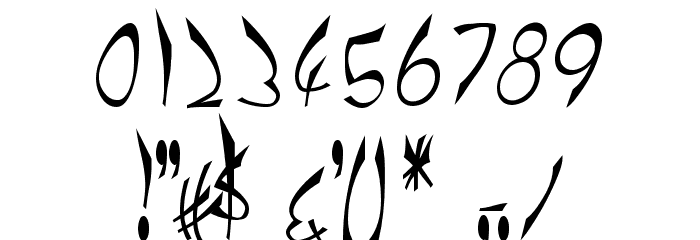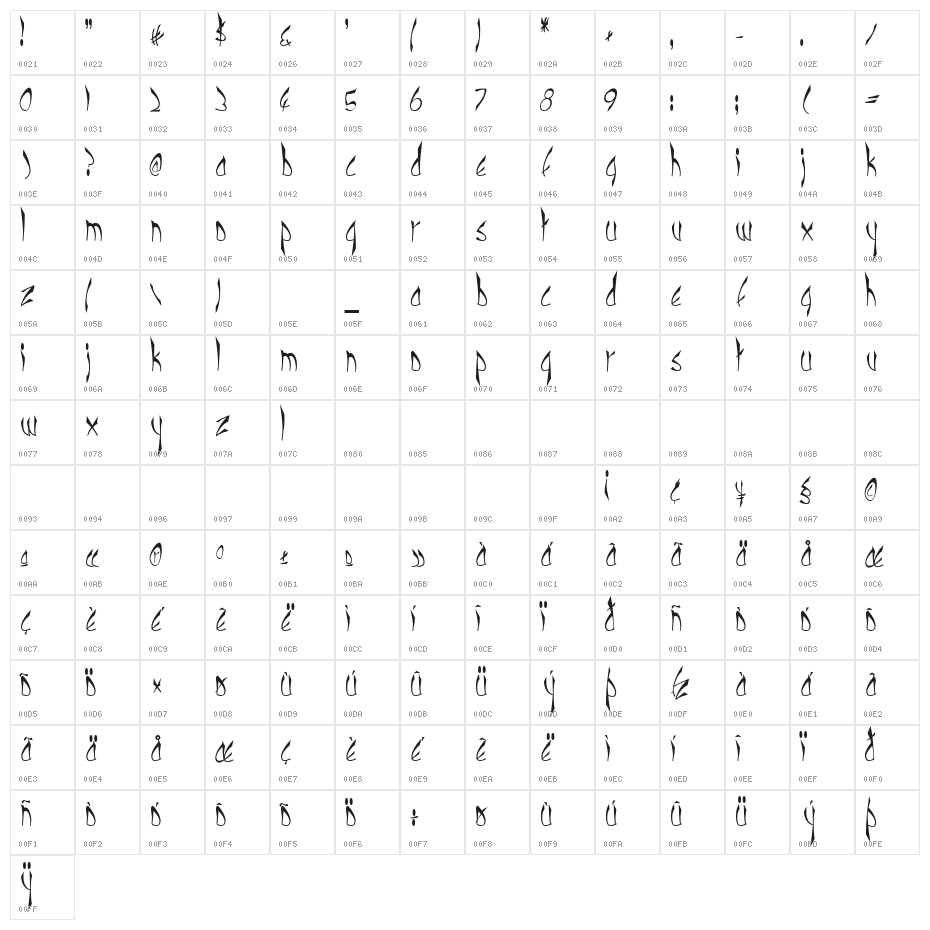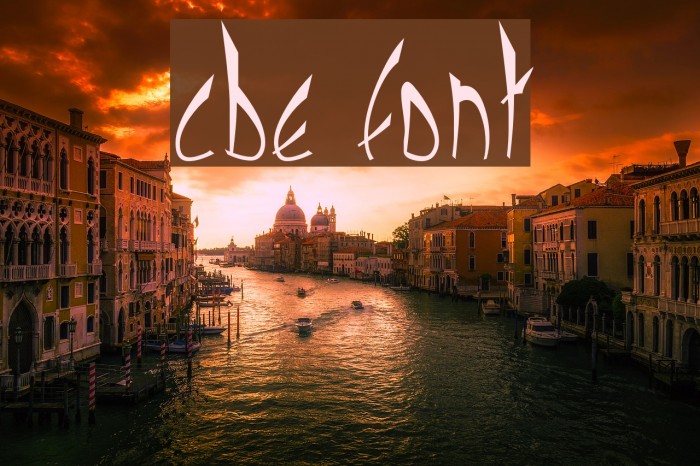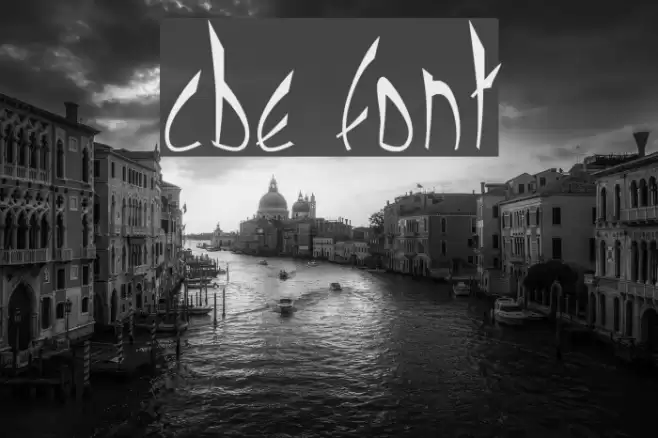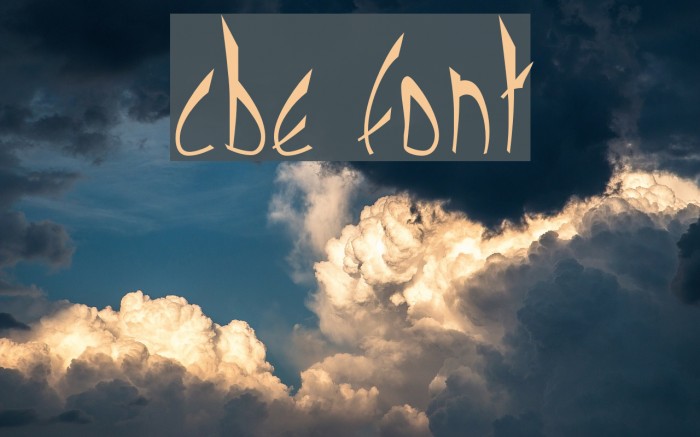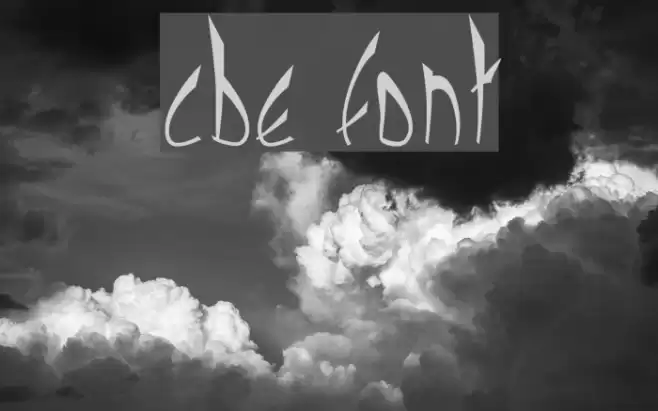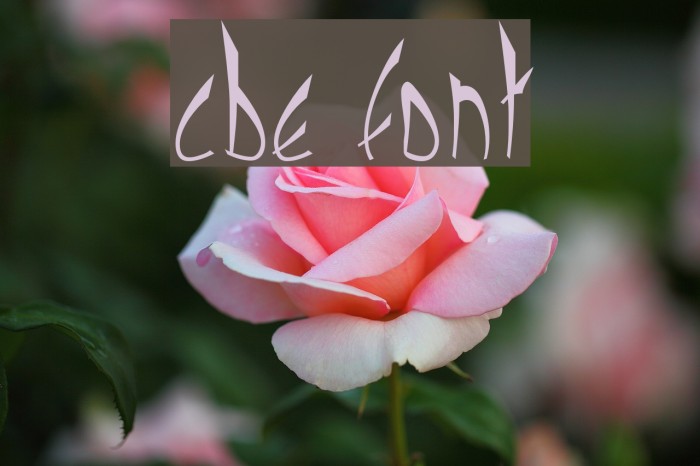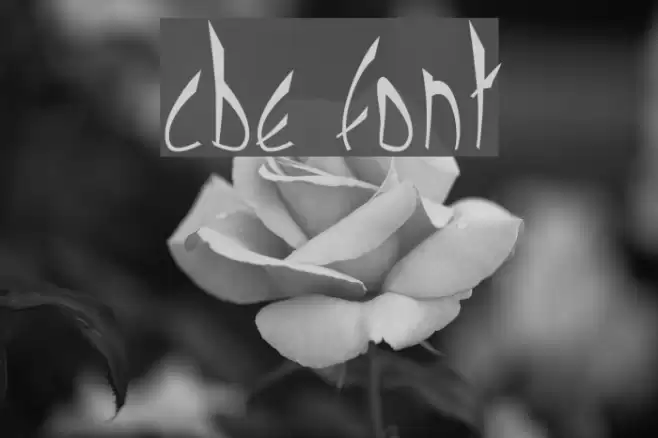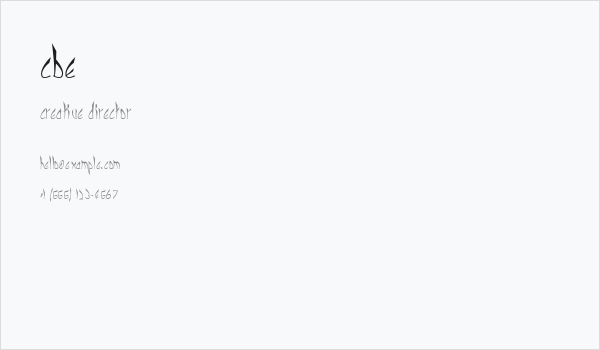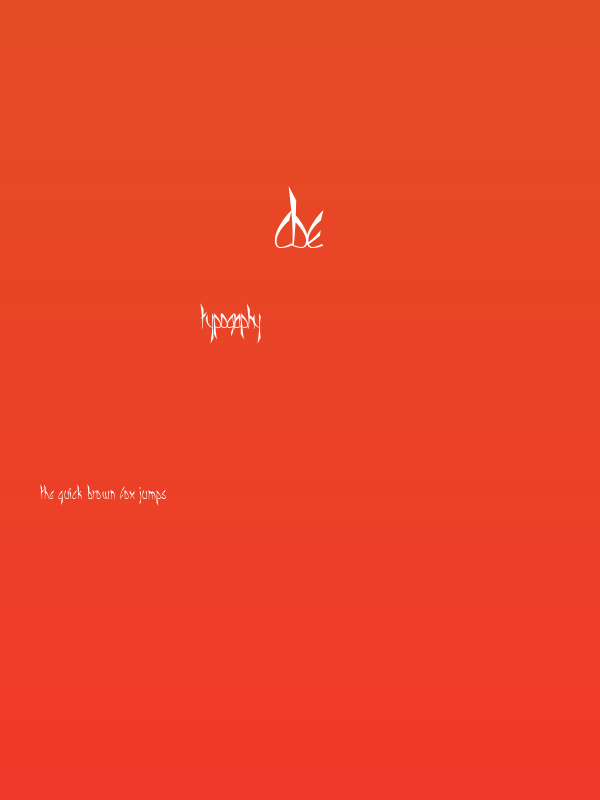
cbe Font
cbe Description
This font features a highly stylized and artistic design, characterized by its sharp, angular lines and unique, almost calligraphic flair. The letters exhibit a dynamic flow, with exaggerated curves and pointed edges that give it a distinctive, edgy appearance. The uppercase and lowercase letters maintain a consistent style, while the numerals and special characters complement the overall aesthetic. This font's dramatic and bold presentation makes it ideal for creative and expressive projects, where a strong visual impact is desired.
| Proposed Projects | Ideal for album covers, posters, branding for edgy or artistic brands, and any project requiring a bold, creative statement. |